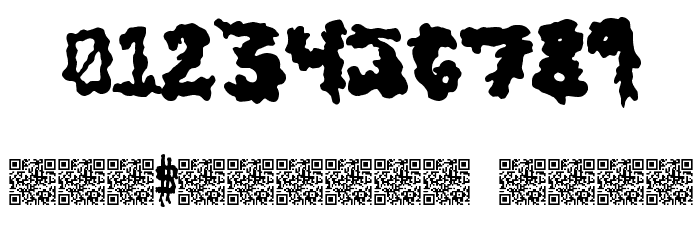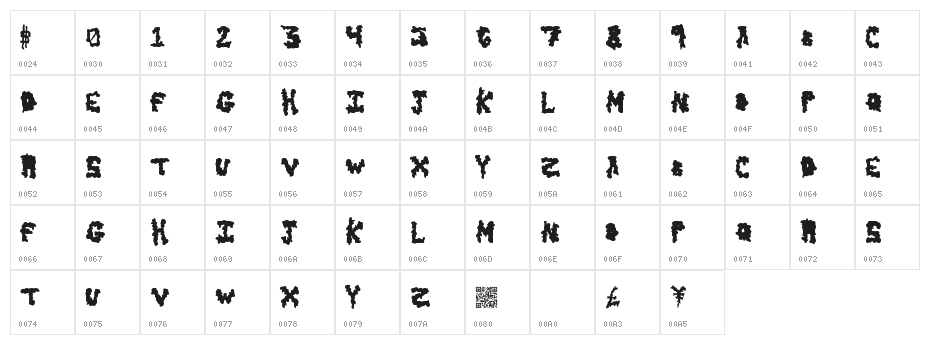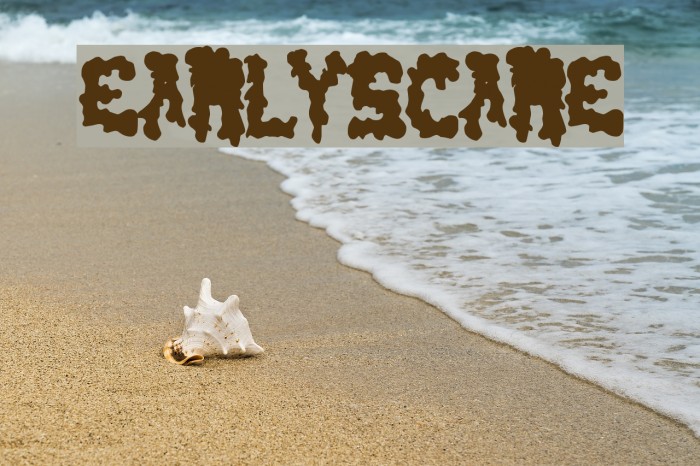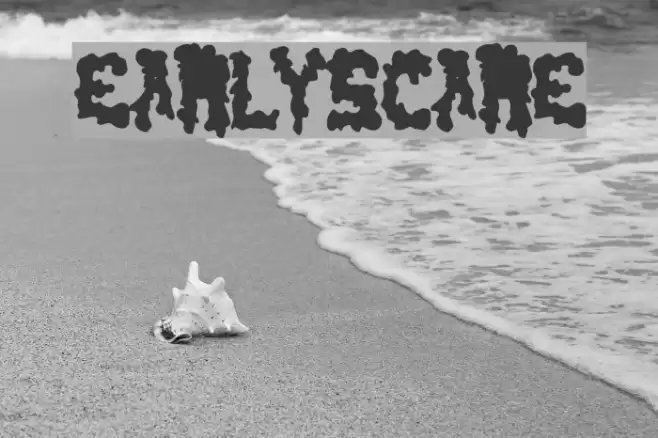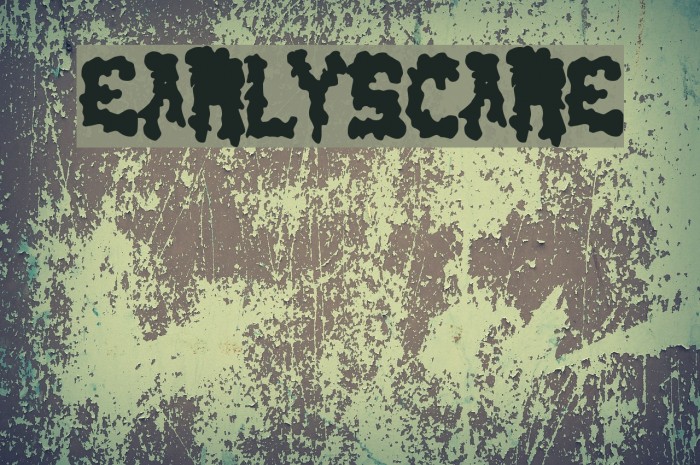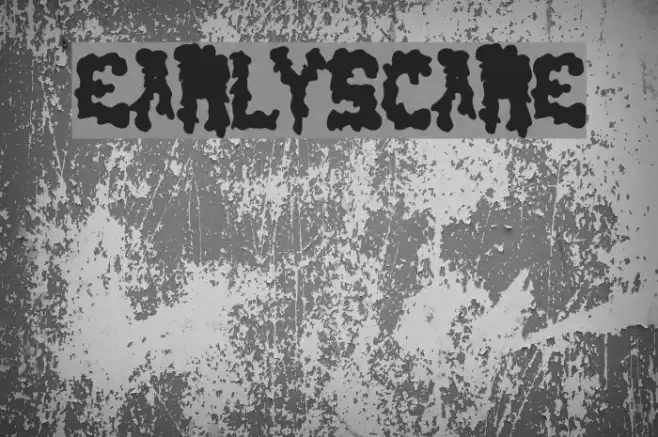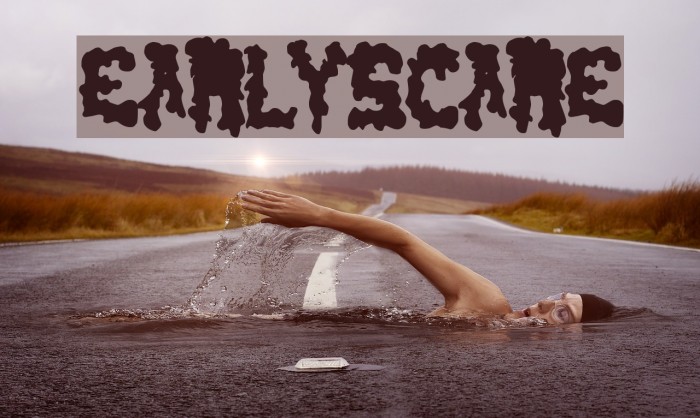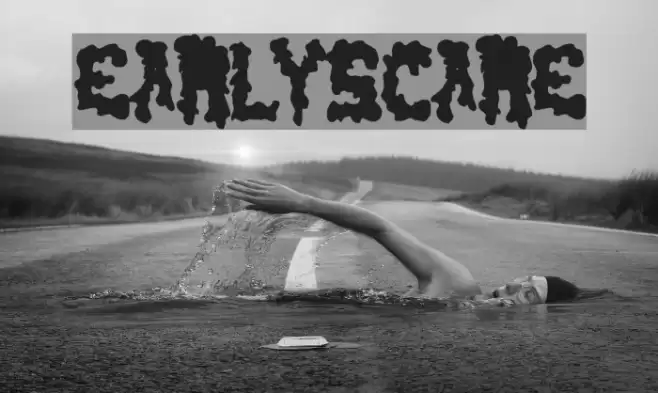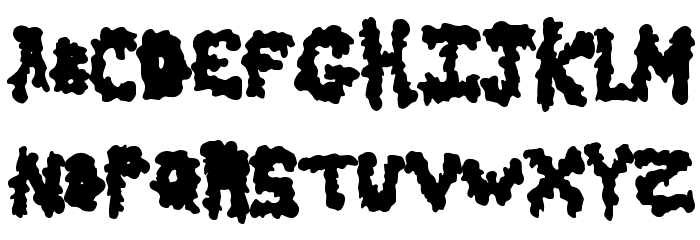
EarlyScare Font
EarlyScare Description
This font features a bold, irregular design that mimics the appearance of dripping or melting material, giving it a distinctly eerie and unsettling aesthetic. The characters are heavily stylized with uneven edges and a thick, substantial weight, making them stand out dramatically. This font is perfect for creating a spooky or horror-themed atmosphere, ideal for Halloween events or haunted house promotions. The uppercase and lowercase letters maintain a consistent style, while the numbers and special characters are equally bold and distinctive, enhancing the overall cohesive look.
| Proposed Projects | Ideal for Halloween posters, horror movie titles, themed event invitations, and haunted house signage. |